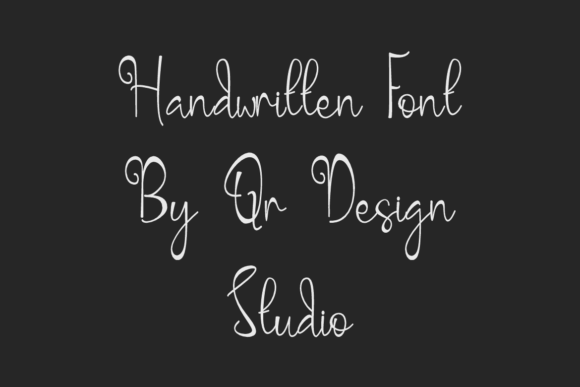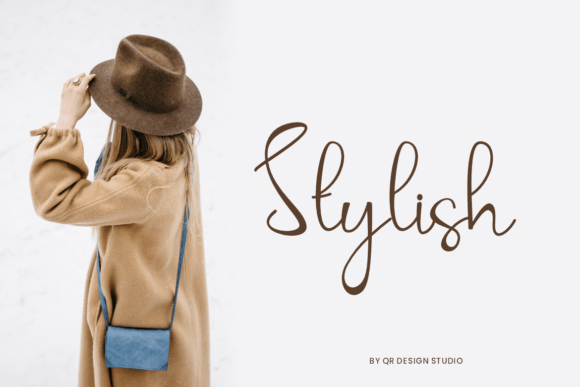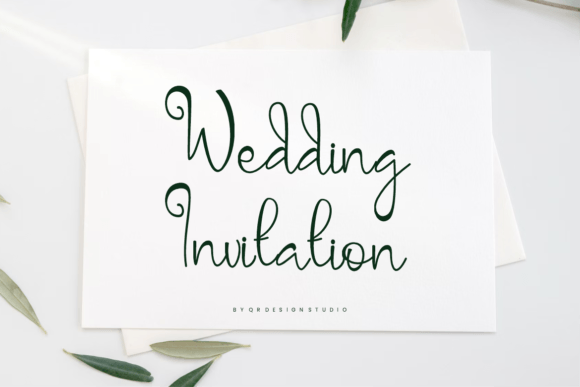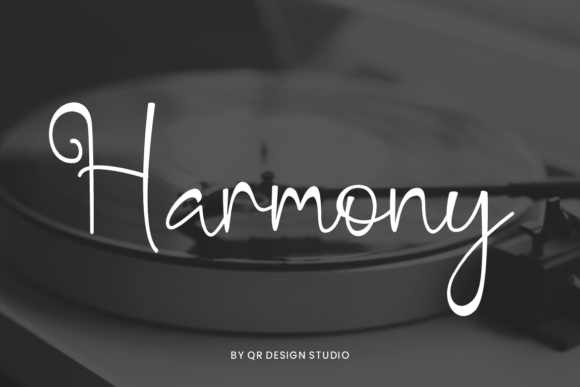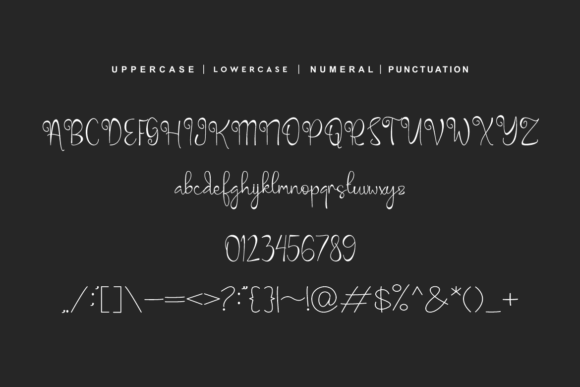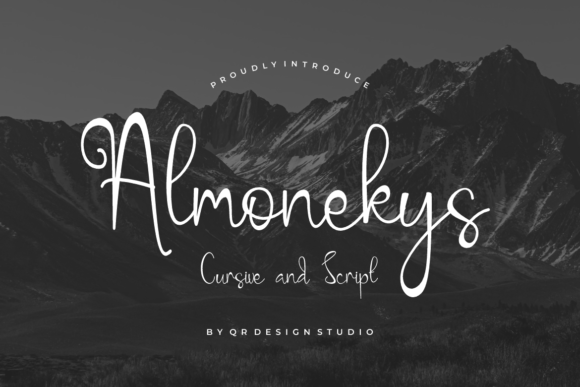
Introducing Almonekys Font: Add a Joyful Touch to Your Designs
Are you tired of using the same old fonts in your designs? Do you want to add a playful and quirky touch to your creative projects? Look no further than Almonekys Font! This adorable handwritten font is sure to bring a smile to your face and make your designs stand out from the crowd.
What is Almonekys Font?
Almonekys Font is a beautiful display font that is perfect for adding a personal touch to your designs. Its unique and quirky handwritten style makes it ideal for use in a variety of creative projects, from greeting cards and invitations to posters and social media graphics.
Key Features of Almonekys Font
- Cute and Quirky: Almonekys Font has a playful and whimsical feel that’s sure to add a joyful touch to your designs.
- Handwritten Style: This font features a unique handwritten style that’s perfect for adding a personal touch to your creative projects.
- Display Font: Almonekys Font is a display font, making it perfect for use in headlines, titles, and other prominent text elements.
How to Use Almonekys Font in Your Designs
Almonekys Font is versatile and can be used in a variety of creative projects. Here are a few ideas to get you started:
- Greeting Cards: Add a personal touch to your greeting cards with Almonekys Font. It’s perfect for birthdays, holidays, and other special occasions.
- Invitations: Make your invitations stand out with Almonekys Font. It’s ideal for weddings, baby showers, and other events.
- Posters: Add a playful touch to your posters with Almonekys Font. It’s perfect for advertising, promoting events, or showcasing your work.
- Social Media Graphics: Use Almonekys Font to create eye-catching social media graphics that will help you stand out from the crowd.
Benefits of Using Almonekys Font
There are many benefits to using Almonekys Font in your designs. Here are a few:
- Unique and Quirky: Almonekys Font is a one-of-a-kind font that’s sure to make your designs stand out.
- Easy to Read: Despite its playful style, Almonekys Font is easy to read, making it perfect for use in a variety of creative projects.
- Customizable: Almonekys Font can be customized to fit your needs, making it perfect for use in a variety of design applications.
- Time-Saving: With Almonekys Font, you can create professional-looking designs in no time.
Tips for Getting the Most Out of Almonekys Font
Here are a few tips for getting the most out of Almonekys Font:
- Experiment with Different Sizes: Almonekys Font looks great in a variety of sizes, so don’t be afraid to experiment.
- Pair it with Other Fonts: Almonekys Font pairs well with other fonts, so try pairing it with a bold font for a contrasting look.
- Use it in Combination with Images: Almonekys Font looks great in combination with images, so try using it to add text to your photos.
Almonekys Font is a beautiful and unique handwritten font that’s perfect for adding a playful and quirky touch to your designs. With its easy-to-use style and versatile design, it’s ideal for use in a variety of creative projects. Whether you’re a designer, crafter, or DIY enthusiast, Almonekys Font is sure to become a favorite in your design arsenal. So why wait? Download Almonekys Font today and start adding a joyful touch to your designs!